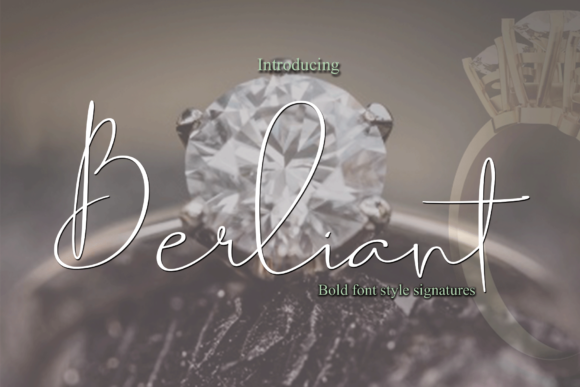
Berliant Font
Immerse yourself in the enchanting world of Berliant Font, a captivating modern typeface rooted in the beauty of genuine handwriting. Prepare to be mesmerized as this remarkable script dances across your screens, leaving a trail of elegance and sophistication.
With each flowing curve and delicate stroke, Berliant Font whispers stories of creativity and individuality. Its organic charm breathes life into your designs, evoking a sense of authenticity and connection. Unleash your imagination and let Berliant's enchanting aura transform your projects into timeless masterpieces.
From the soft caress of its handwritten lines to the subtle nuances of its natural imperfections, Berliant Font captures the essence of artistry and craftsmanship. Its versatile nature makes it a perfect companion for a myriad of design endeavors. Whether you're crafting elegant wedding invitations, heartfelt personal letters, or stunning social media visuals, Berliant's presence will elevate your work to new heights.
Indulge in the sheer beauty of Berliant Font and unlock the limitless possibilities it holds. Its timeless appeal transcends trends and seasons, ensuring that your designs remain captivating and relevant for years to come. As you embrace the allure of Berliant, you'll discover a font that not only enhances your projects but also reflects your unique creative spirit.
Don't just take our word for it. Explore the gallery of stunning creations crafted with Berliant Font and witness its transformative power firsthand. From breathtaking logos and website designs to eye-catching posters and social media posts, Berliant leaves an indelible mark of sophistication and elegance.
Embark on a creative journey with Berliant Font and experience the joy of creating designs that resonate with your audience. Its magical touch adds a layer of depth and emotion, captivating hearts and leaving a lasting impression. As you delve into the world of Berliant, you'll discover a font that not only beautifies your projects but also elevates your creative soul.